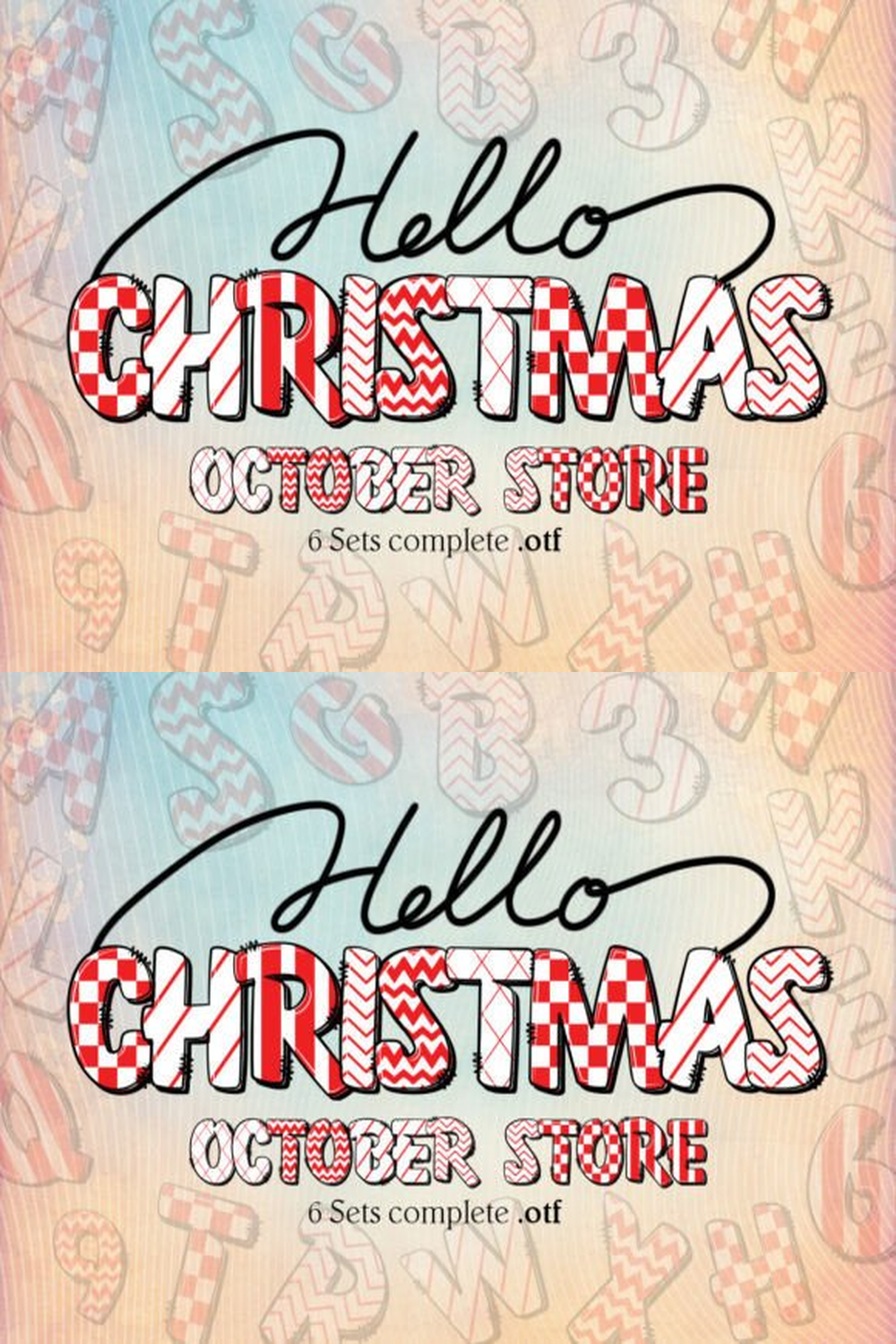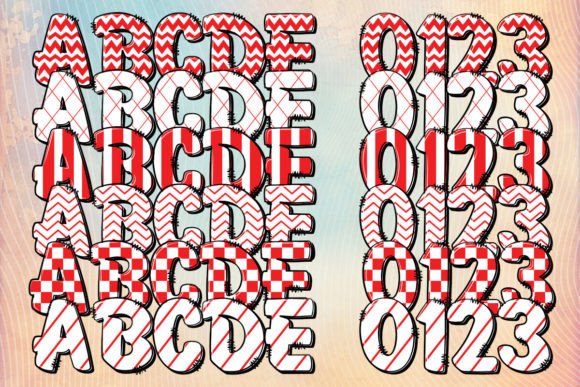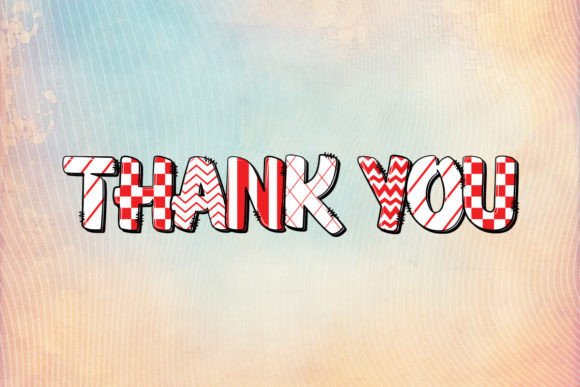
About the Christmas Font
Welcome to the world of Christmas Font, a typeface that will inspire your next great project. Introducing the six-pack collection of Christmas Bundle Color Fonts, a must-have for seasonal celebrations. Unleash a festive flair on t-shirts, mugs, digital graphics, crafts, and greeting cards, infusing your projects with the warmth and joy of Christmas. This distinctive array includes six dynamic OTF Color Fonts, each exuding its unique character. Adorn your creations with our decorative Christmas fonts, transforming them into timeless pieces that encapsulate the holiday spirit. Let the charm of these fonts uplift your designs and captivate your audience this festivity.